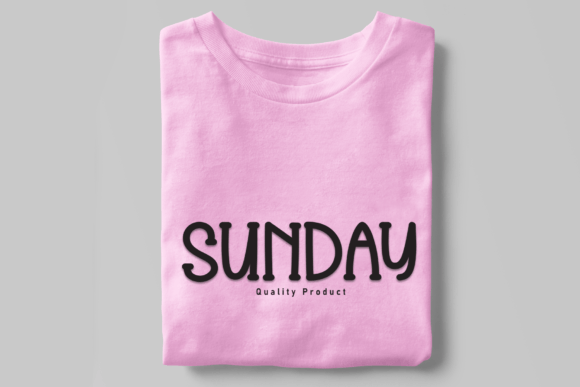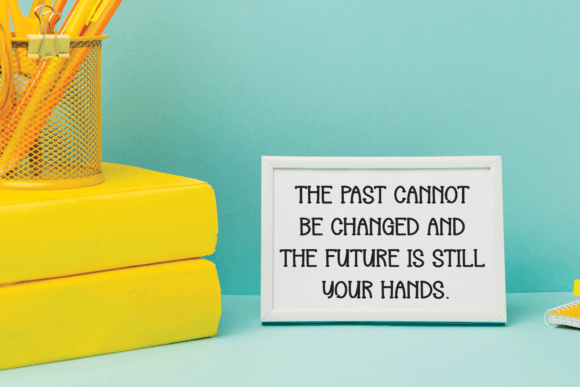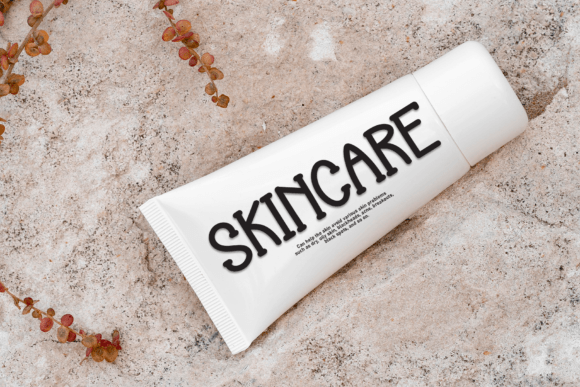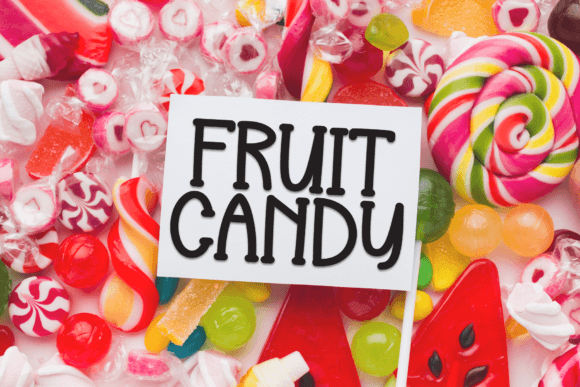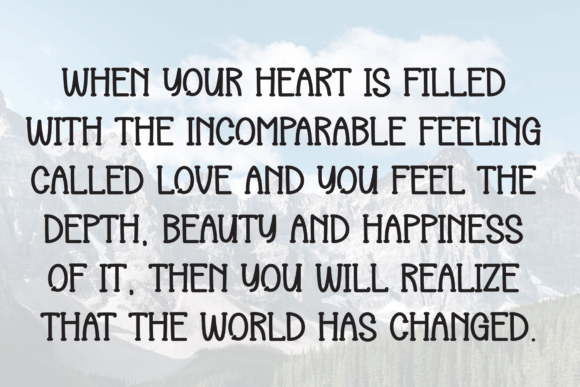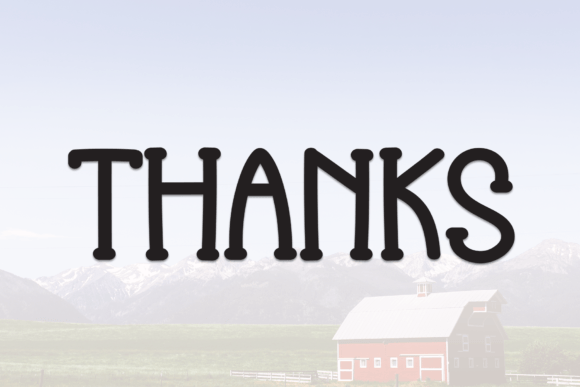
Discover the Delightful Charm of Farmhouse Font
Are you tired of using the same old fonts in your designs? Look no further than the Farmhouse Font, a playful, handcrafted display font that’s sure to bring a touch of sweetness and charm to your creations. With its unique blend of playfulness and classiness, this adorable font is perfect for designers and crafters looking to add a dose of fun to their work.
A Perfect Blend of Playfulness and Sophistication
Farmhouse Font is a versatile typeface that’s perfect for a wide range of design projects. Whether you’re creating wedding invitations, greeting cards, or social media graphics, this font is sure to bring a smile to your audience’s faces. Its playful, hand-drawn aesthetic gives it a friendly and approachable feel, making it perfect for brands and designers who want to convey a sense of warmth and approachability.
What Makes Farmhouse Font So Special?
- Handcrafted with love: Farmhouse Font is a carefully crafted, hand-drawn typeface that’s full of character and personality.
- Playful yet classy: This font seamlessly blends playfulness and sophistication, making it perfect for designers who want to create unique and eye-catching designs.
- Versatile: Farmhouse Font can be used for a wide range of design projects, from wedding invitations to social media graphics.
- Easy to read: Despite its playful aesthetic, Farmhouse Font is easy to read, making it perfect for body text and headlines.
How to Use Farmhouse Font in Your Designs
Farmhouse Font is a versatile typeface that can be used in a variety of design projects. Here are a few ideas to get you started:
- Wedding invitations: Add a touch of sweetness and charm to your wedding invitations with Farmhouse Font.
- Greeting cards: Create unique and eye-catching greeting cards for special occasions like birthdays, holidays, and anniversaries.
- Social media graphics: Use Farmhouse Font to create engaging and shareable social media graphics that showcase your brand’s personality.
- Branding and packaging: Add a touch of playfulness and whimsy to your brand’s packaging and branding materials.
Tips for Pairing Farmhouse Font with Other Fonts
Farmhouse Font is a versatile typeface that can be paired with a variety of other fonts to create unique and eye-catching designs. Here are a few tips for pairing Farmhouse Font with other fonts:
- Pair with a serif font: Pair Farmhouse Font with a serif font like Georgia or Times New Roman to create a beautiful contrast between playfulness and sophistication.
- Pair with a sans-serif font: Pair Farmhouse Font with a sans-serif font like Arial or Helvetica to create a clean and modern look.
- Experiment with font sizes: Experiment with different font sizes to create visual interest and hierarchy in your designs.
Farmhouse Font is a delightful and charming typeface that’s perfect for designers and crafters looking to add a touch of playfulness and whimsy to their designs. With its unique blend of playfulness and sophistication, this font is sure to bring a smile to your audience’s faces. Whether you’re creating wedding invitations, greeting cards, or social media graphics, Farmhouse Font is a versatile typeface that’s sure to become a favorite in your design toolkit.